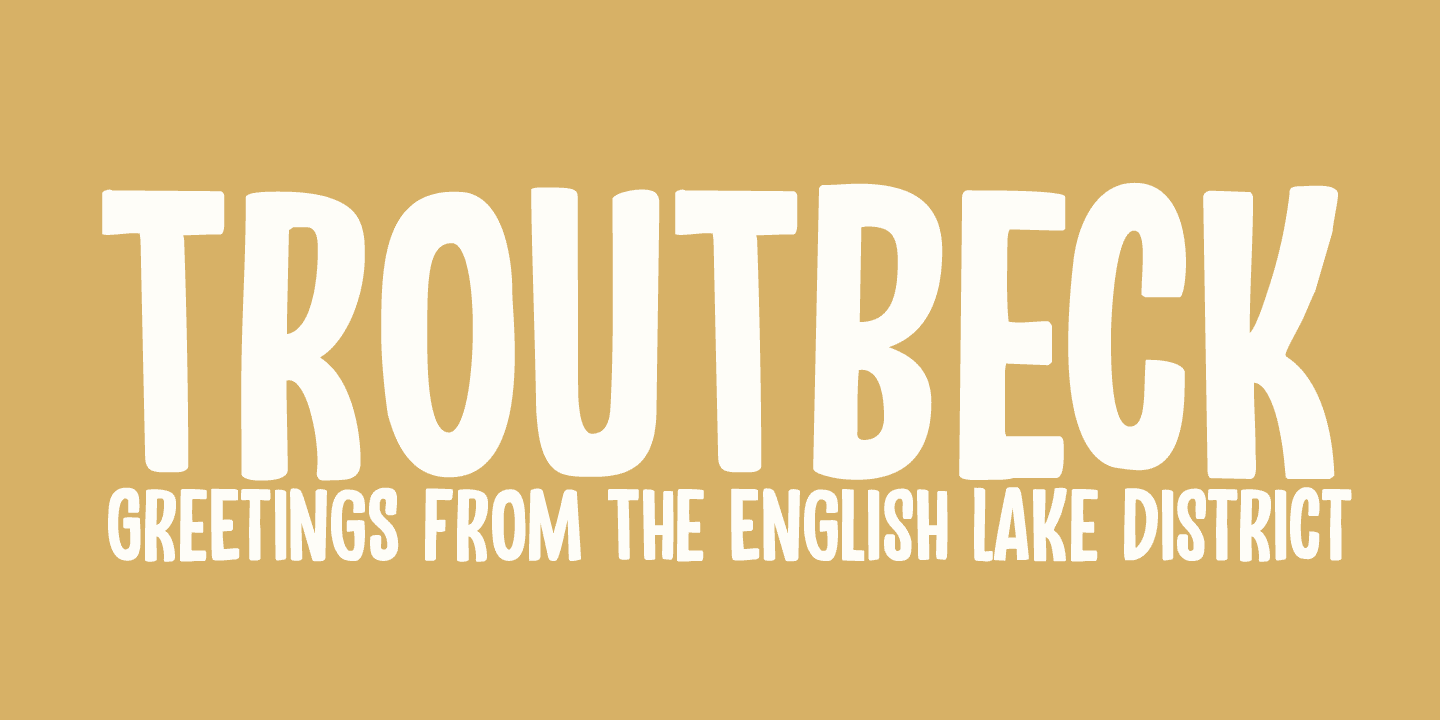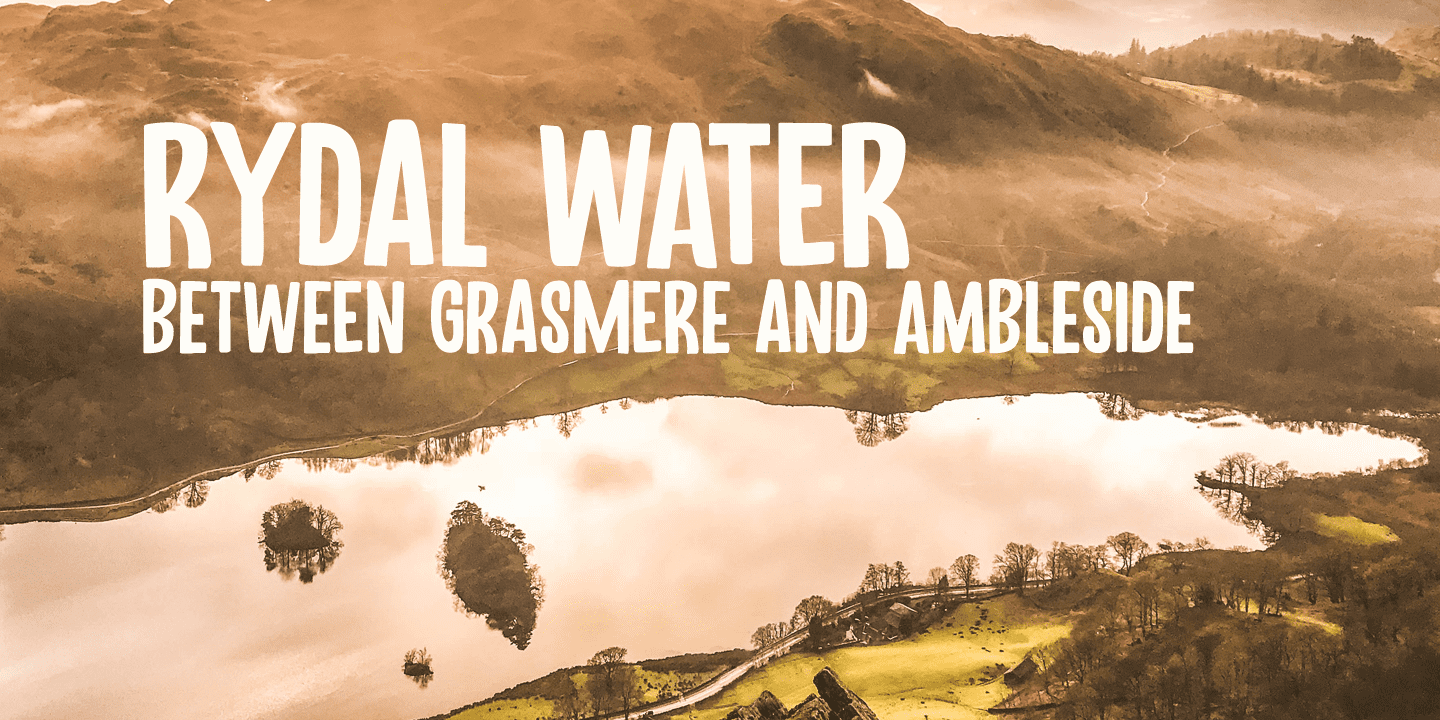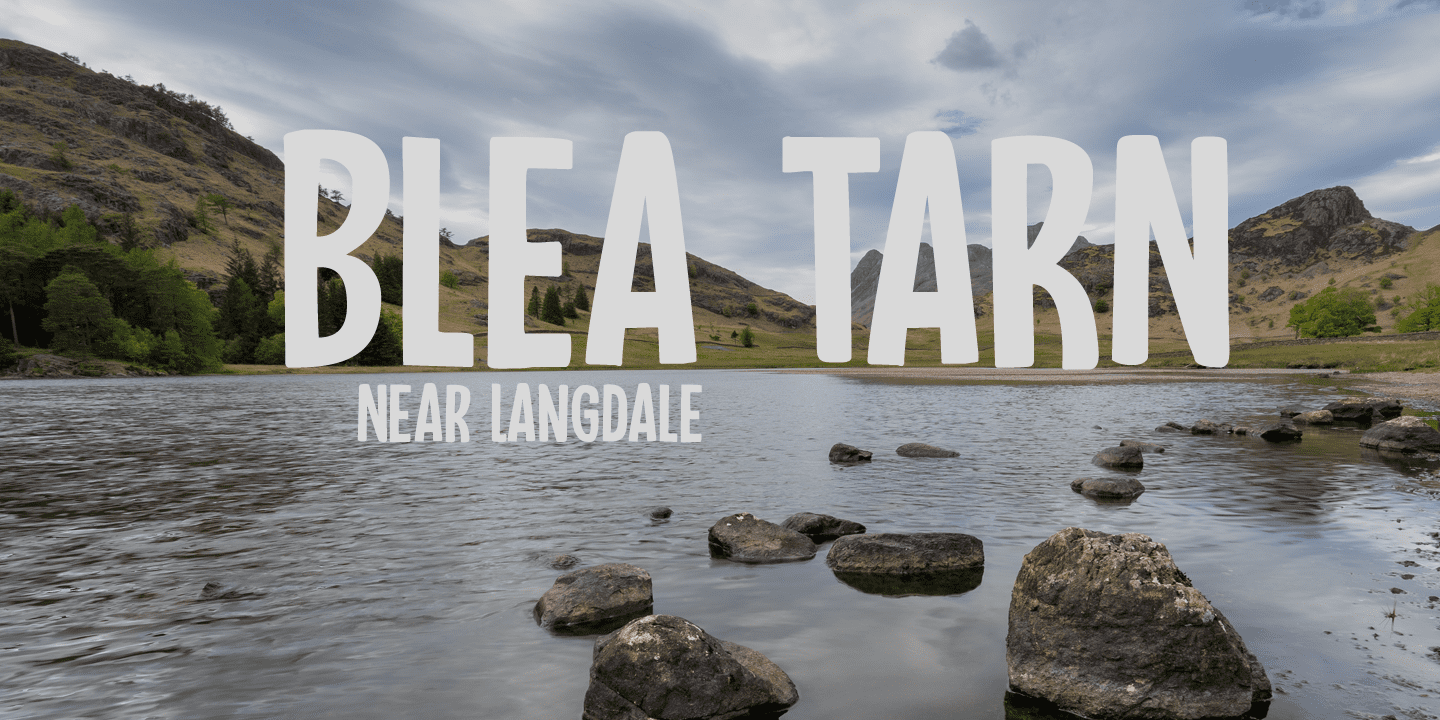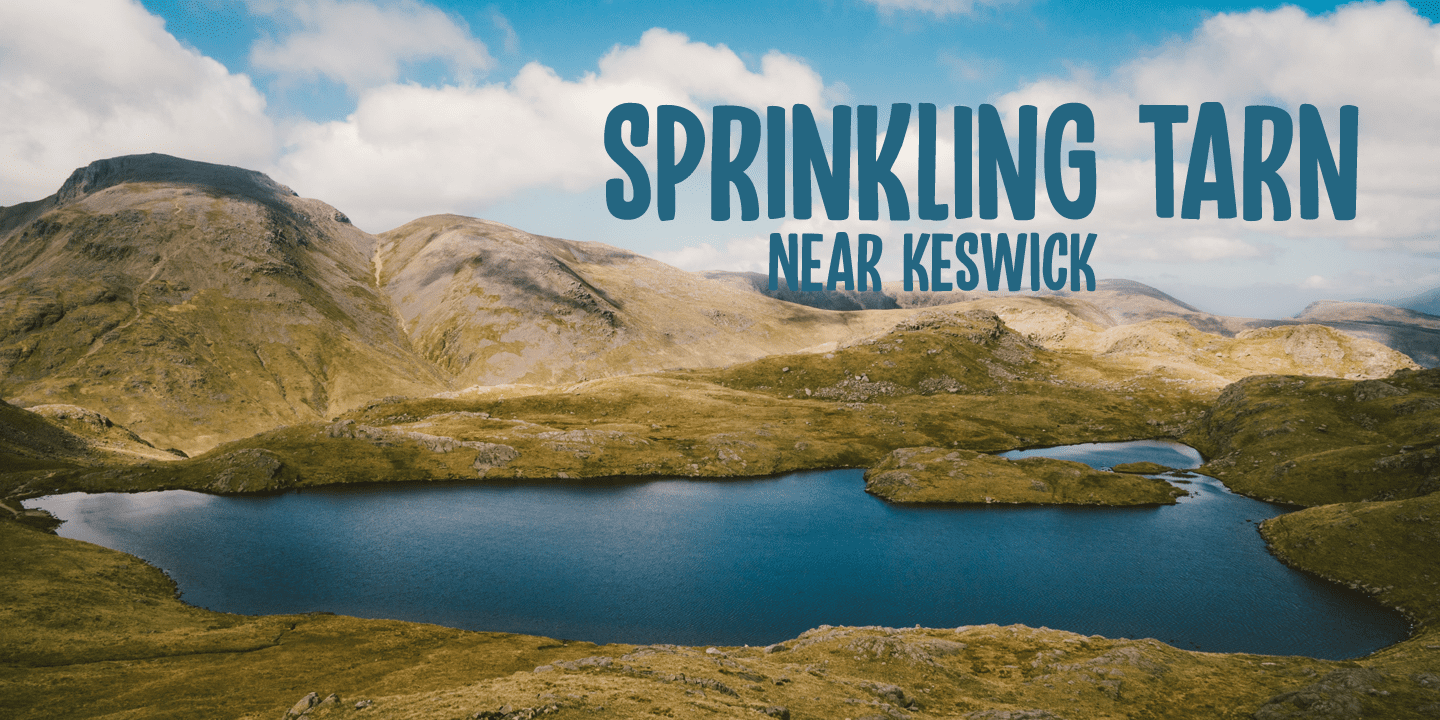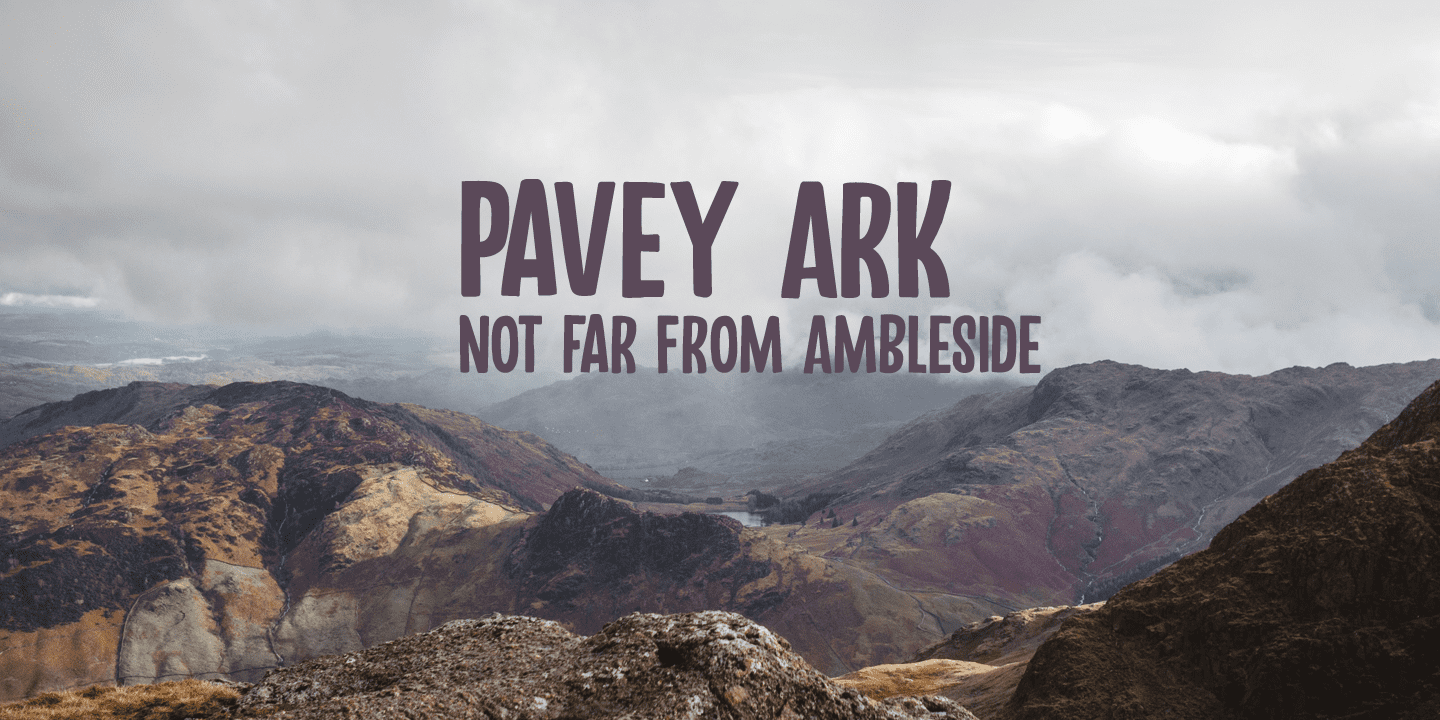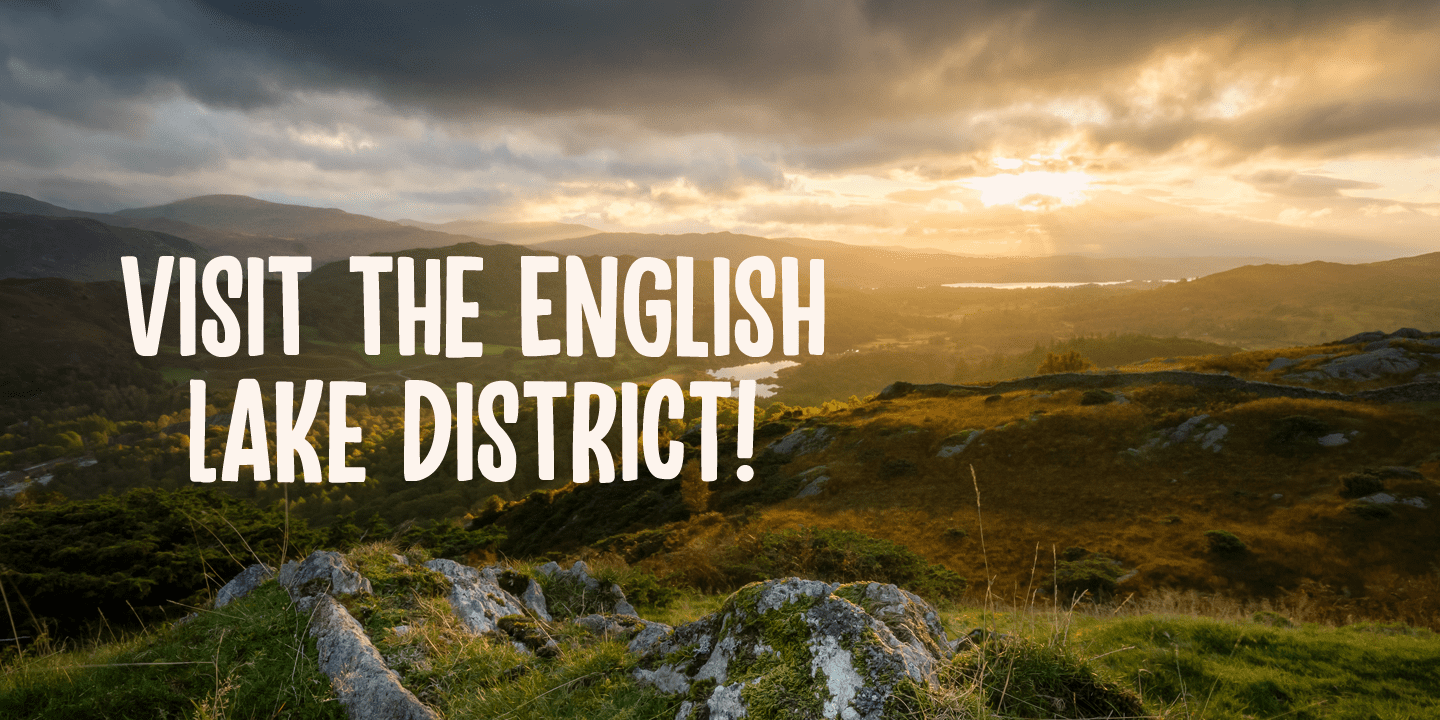
Troutbeck is a small, old fashioned village on the narrow and hilly road from Windermere to Penrith. If you ever make it there, you will discover that the area is a walhalla for hikers!
Troutbeck font is a pleasing, handmade all caps font. It would look great on product packaging or book covers, or maybe postcards reading ‘Greetings from the Lake District’.